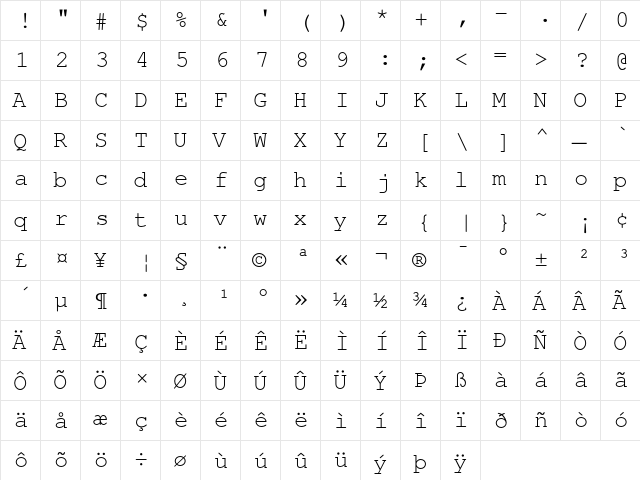
Nimbus FreeMono
Design Context for Nimbus Typeface
Nimbus uses fixed-width spacing throughout, giving it the structured, systematic character associated with coding environments and technical documentation.
Pro Tip: Pair Nimbus with a proportional sans for UI contexts where code-style labels and regular body copy need to coexist.